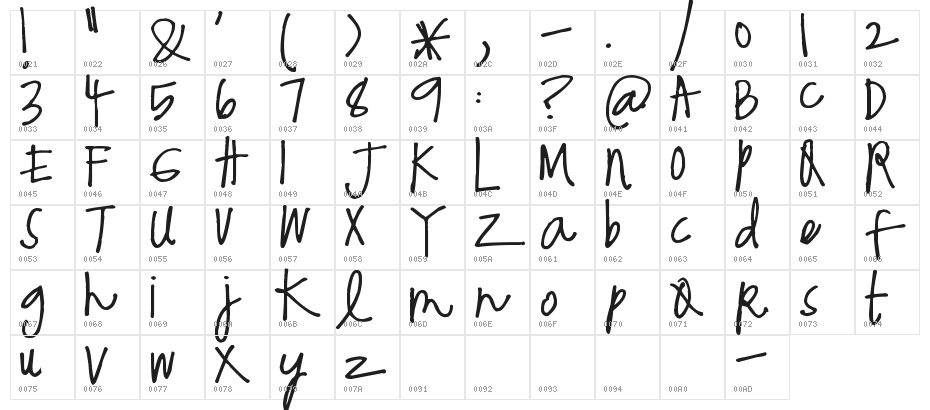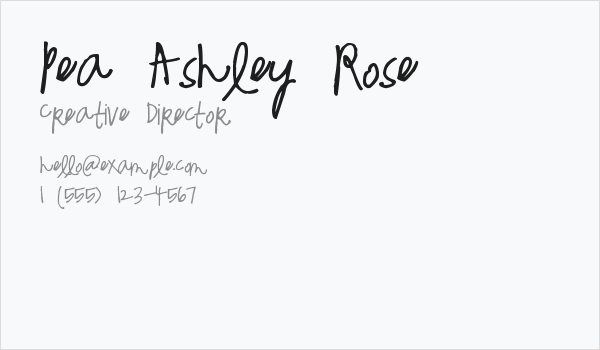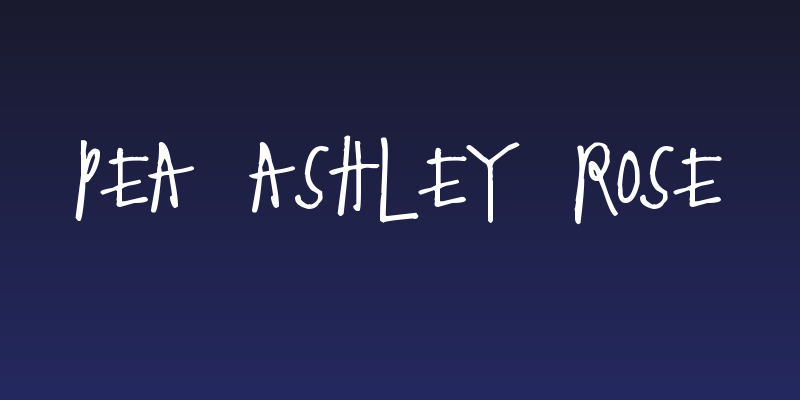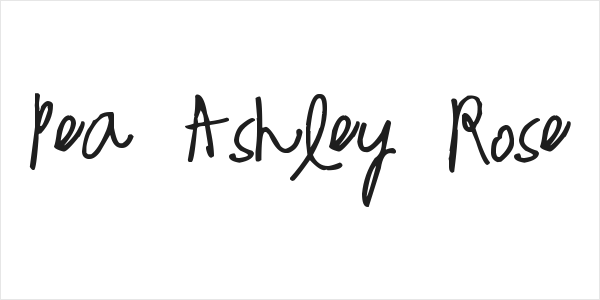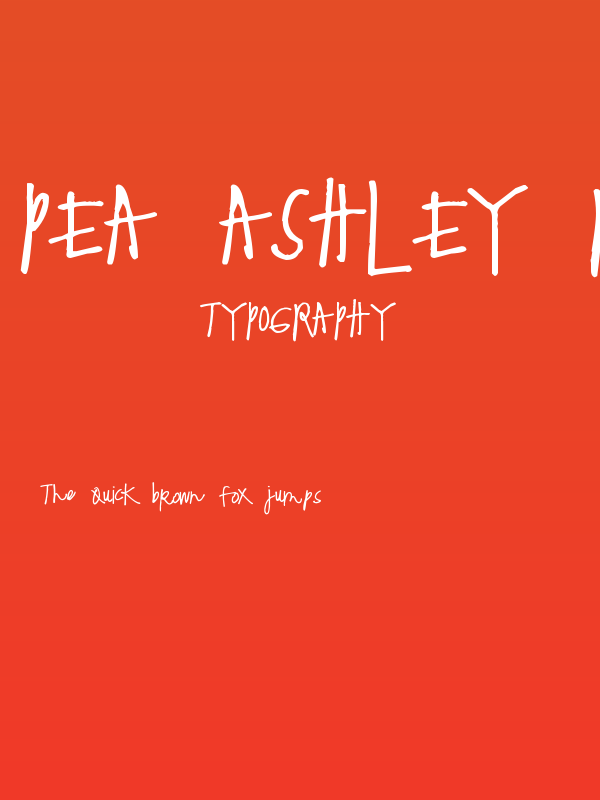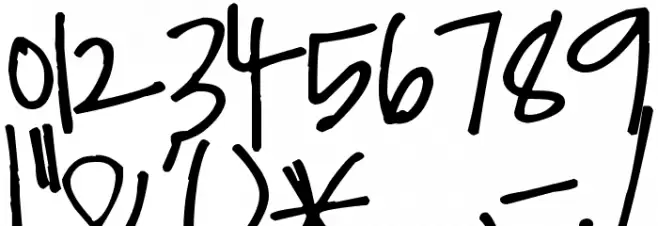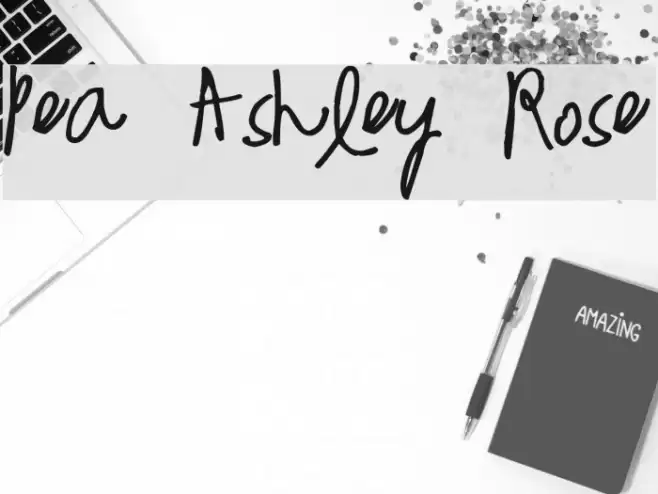
Pea Ashley Rose Font
Pea Ashley Rose Description
This font features a playful and casual handwritten style, characterized by its loose and flowing strokes. The letters are slightly slanted, giving it a dynamic and informal appearance. The uppercase and lowercase letters maintain a consistent style, with a natural and spontaneous look. The numbers and special characters are crafted with the same playful touch, ensuring a cohesive overall design. This font exudes a sense of personality and warmth, making it ideal for projects that require a personal or friendly tone.
| Overall Style | Casual |
| Use Case | Logos, Headlines, Informal Text |
| Proposed Projects | Ideal for personal invitations, greeting cards, casual branding, and social media graphics. |